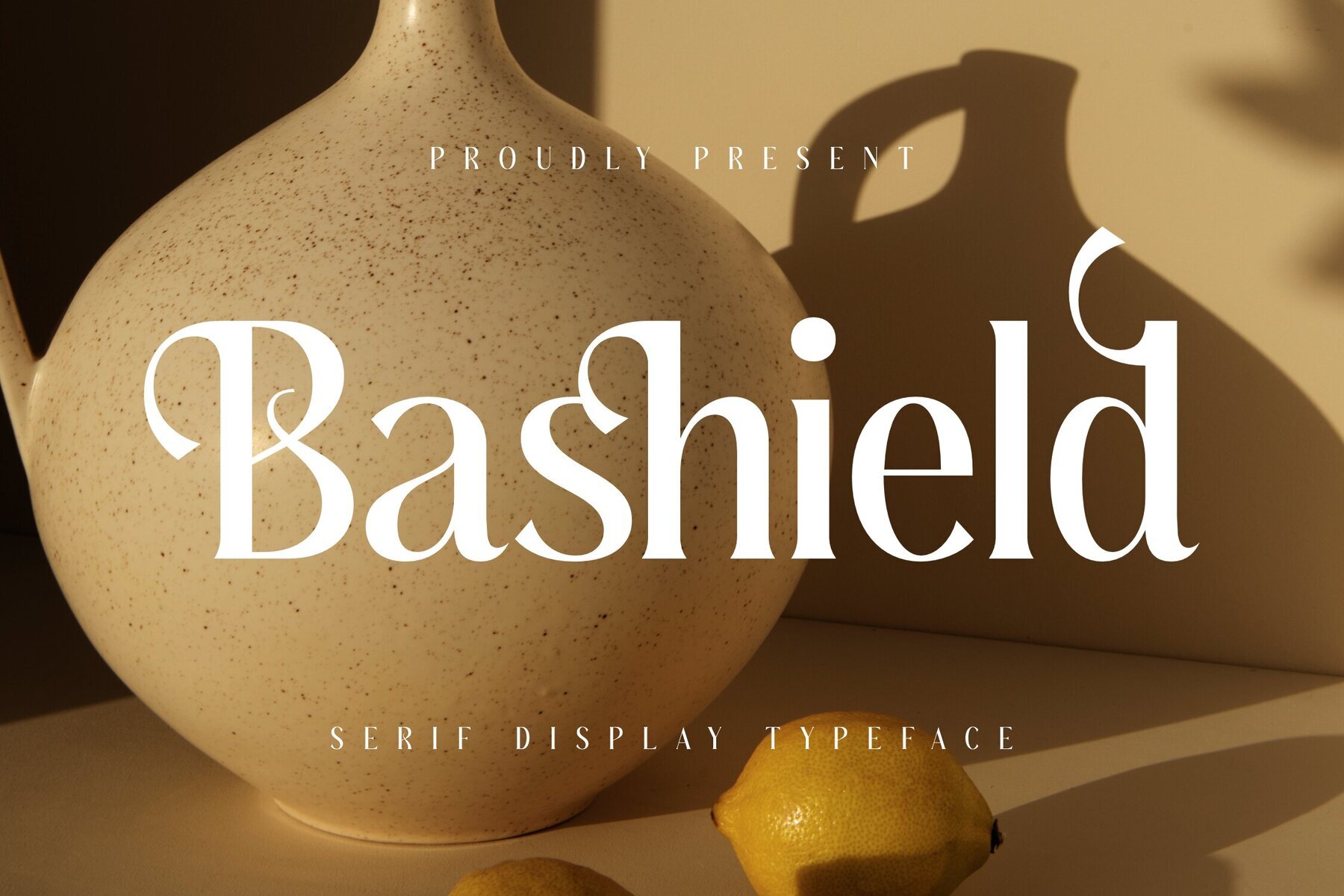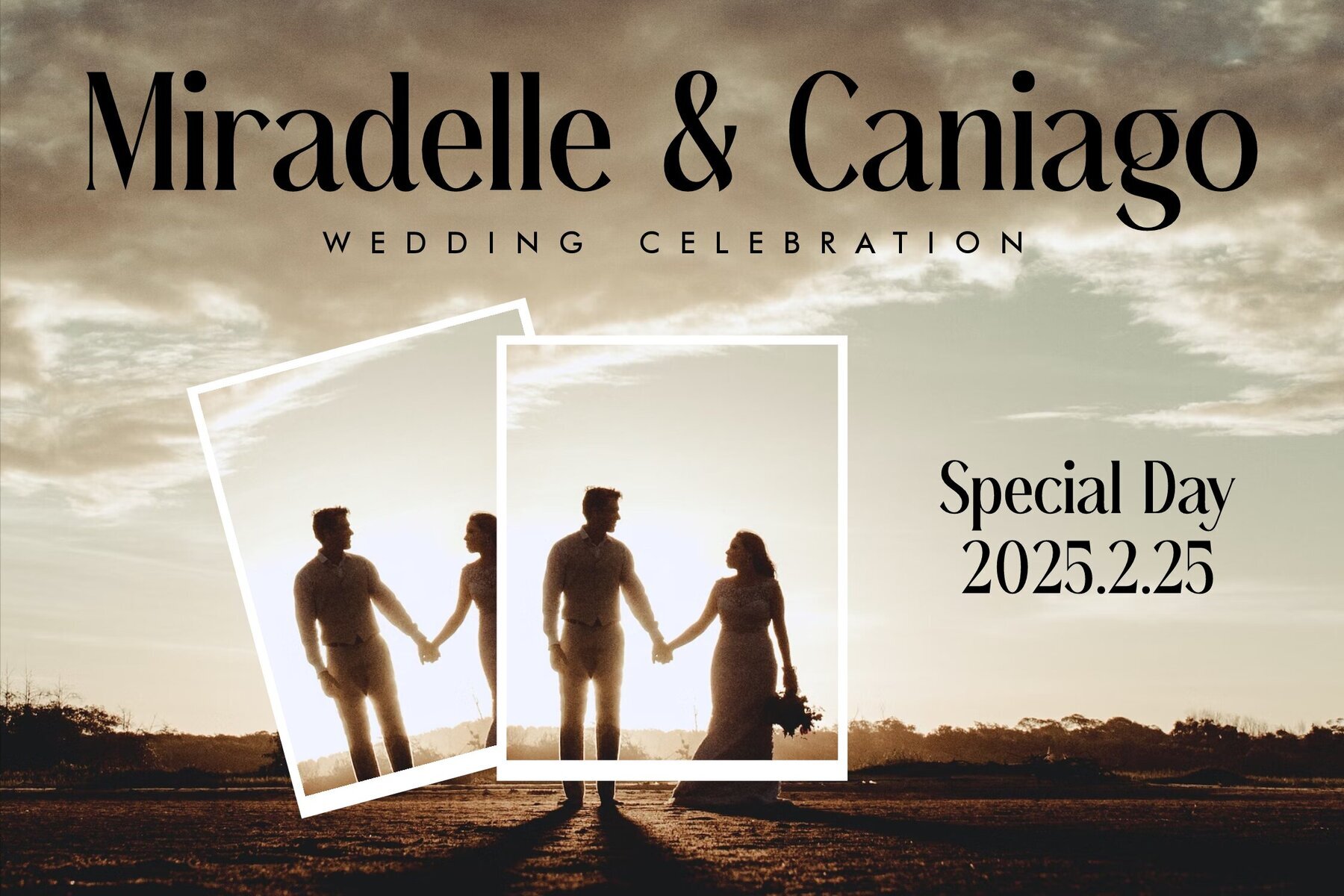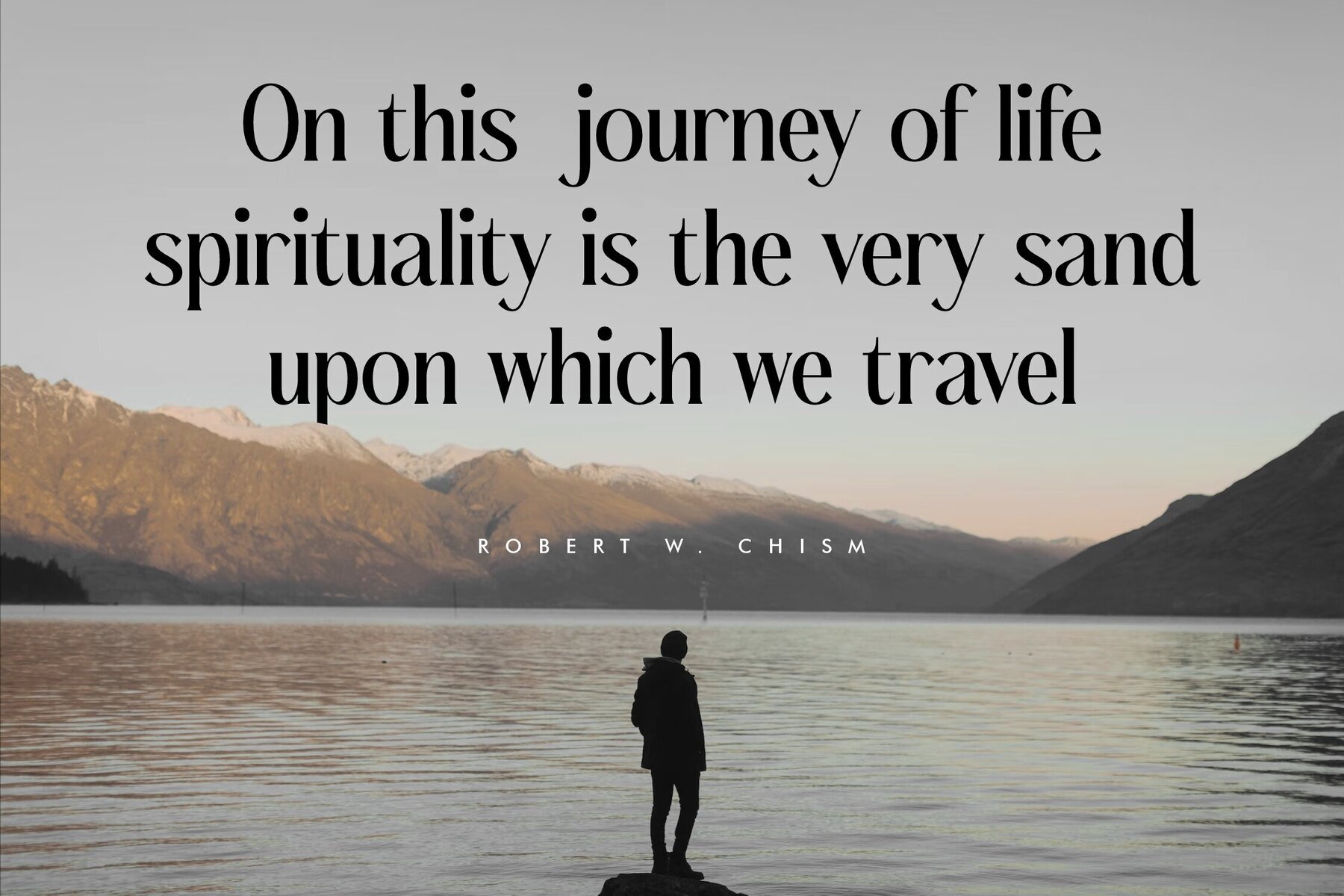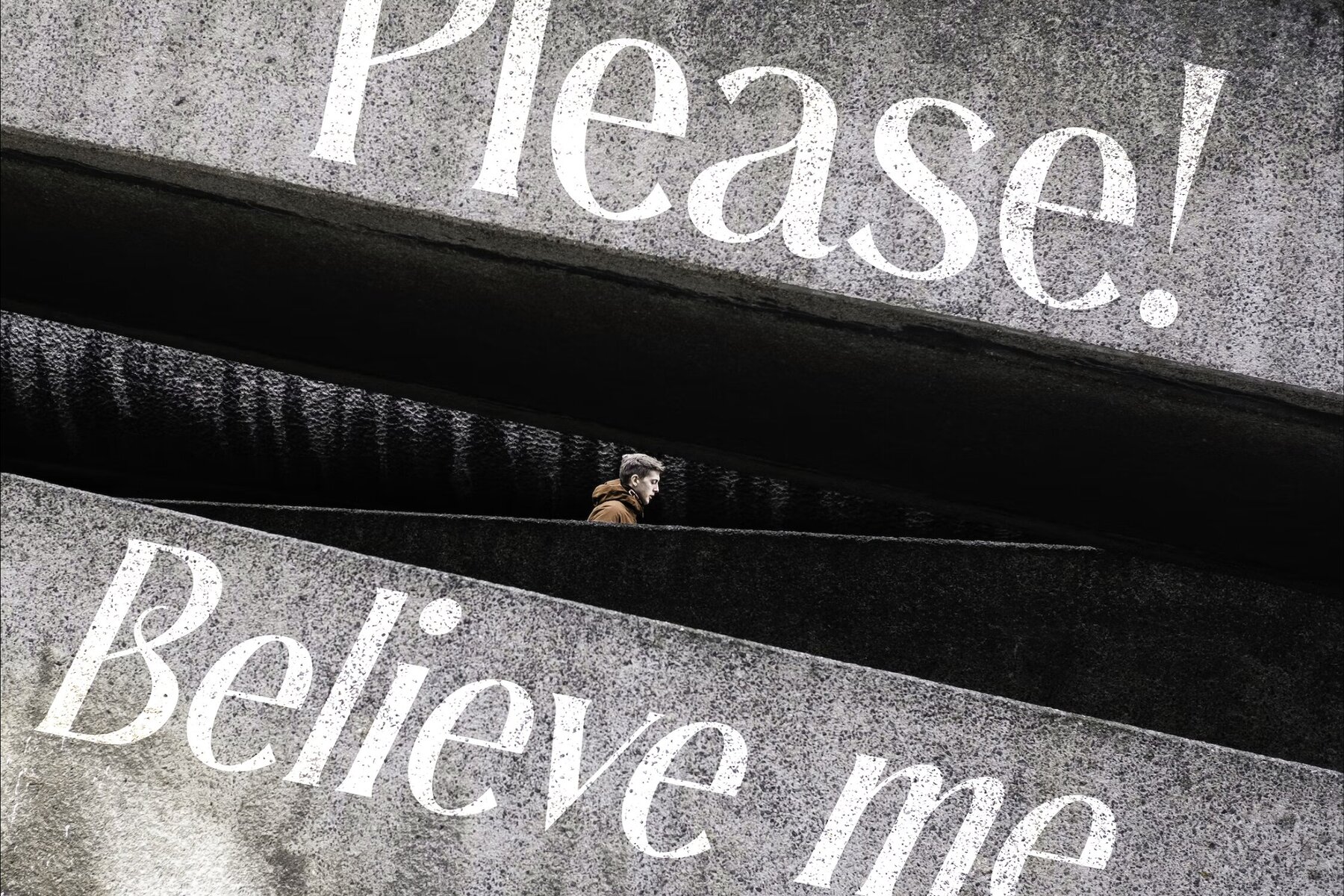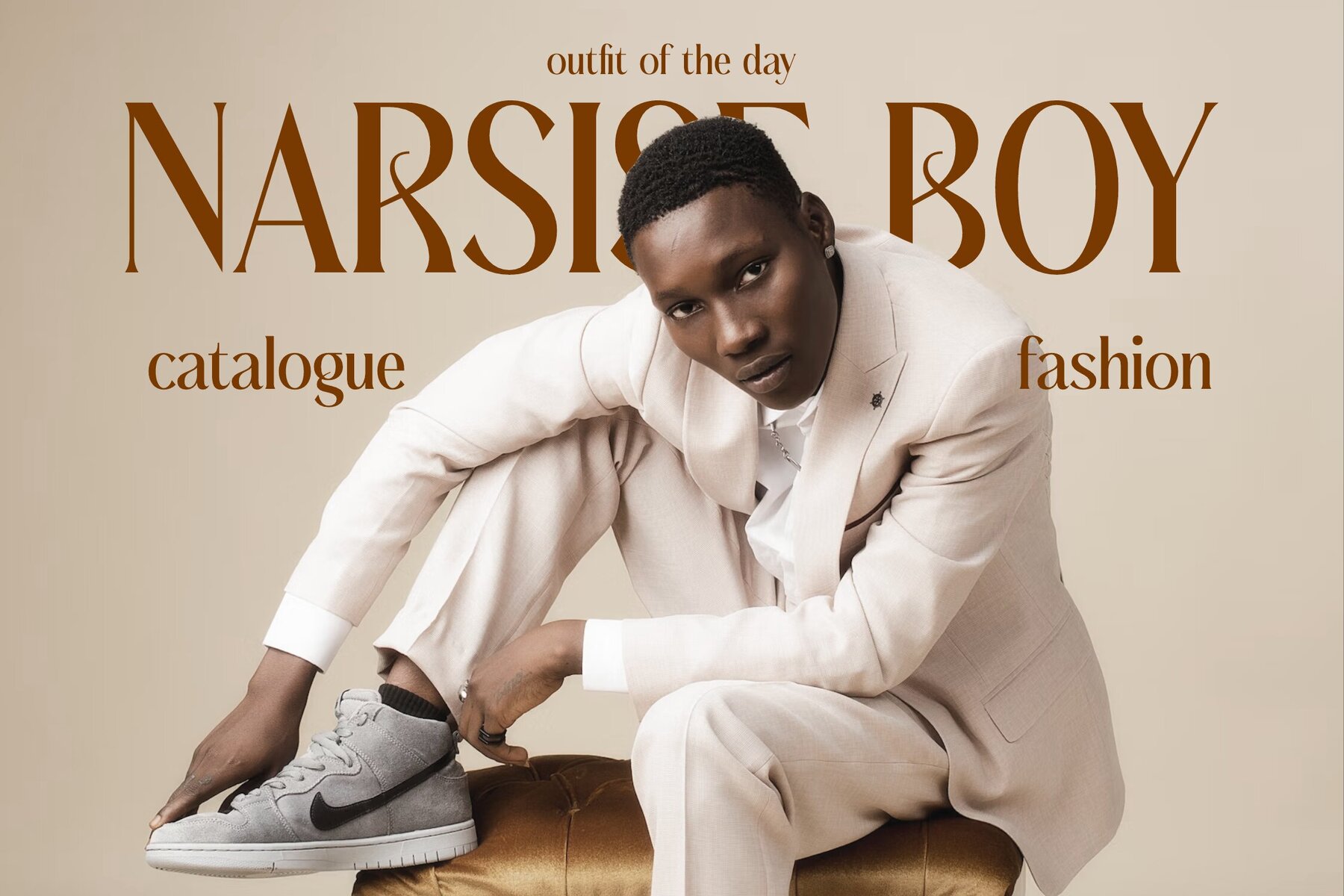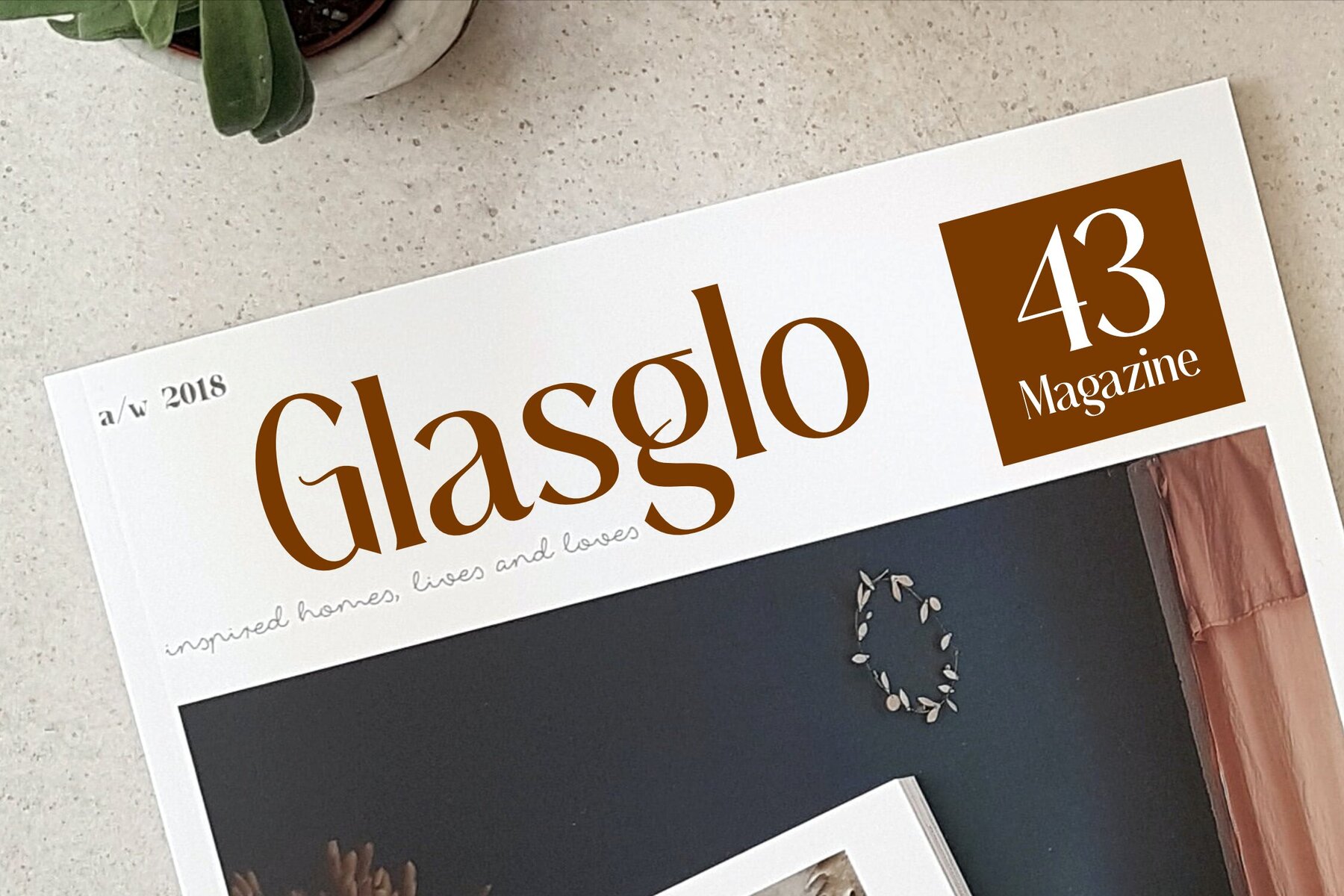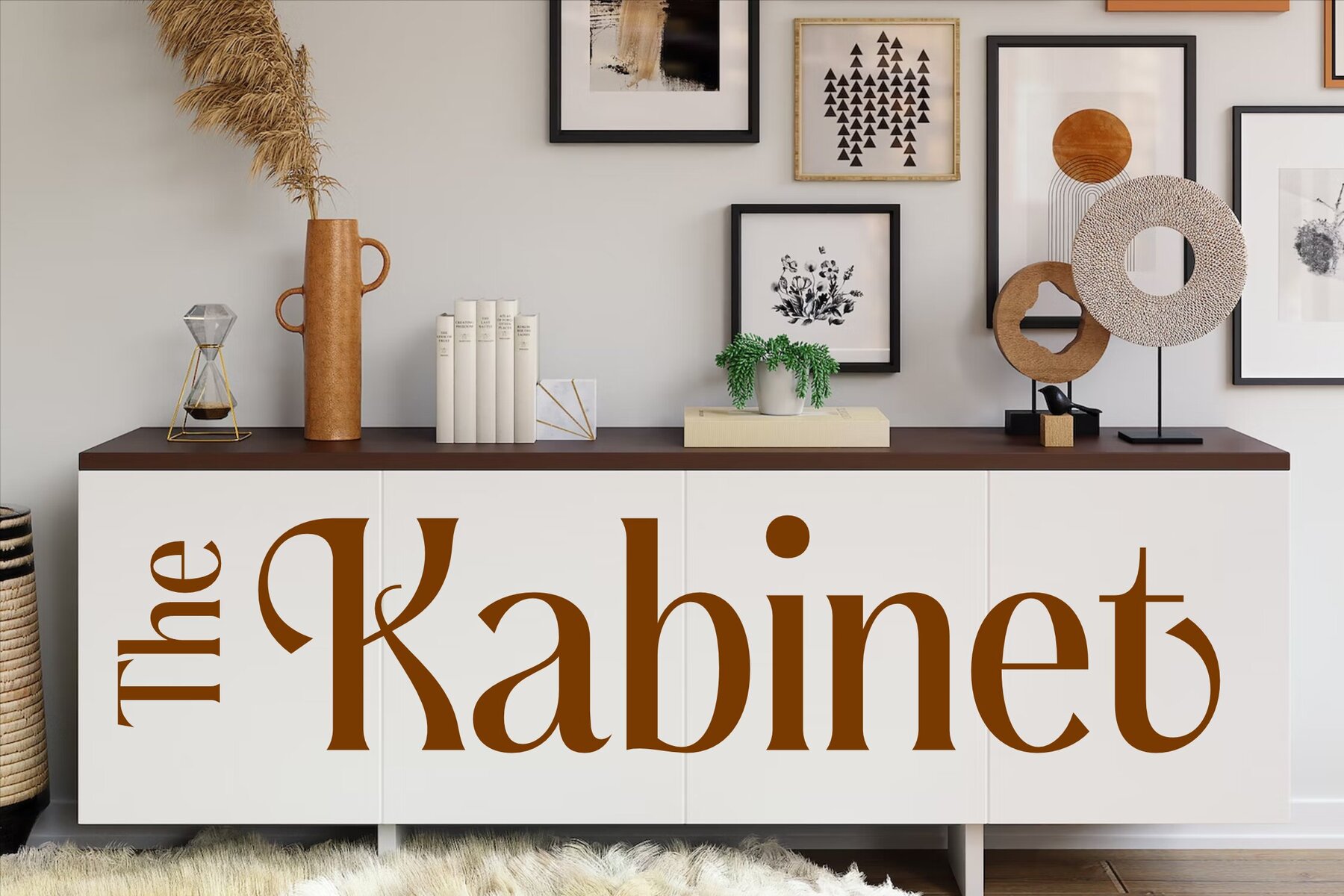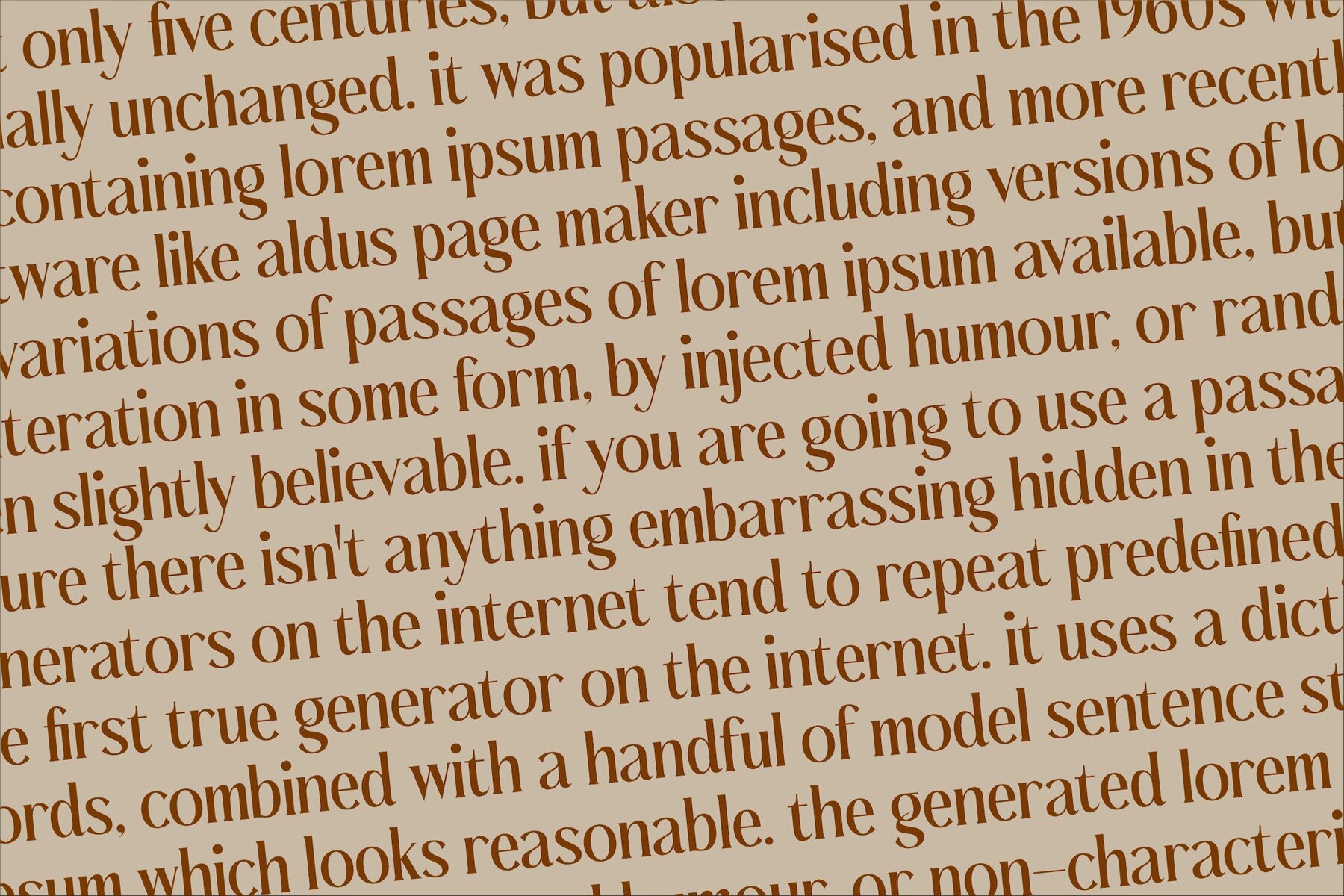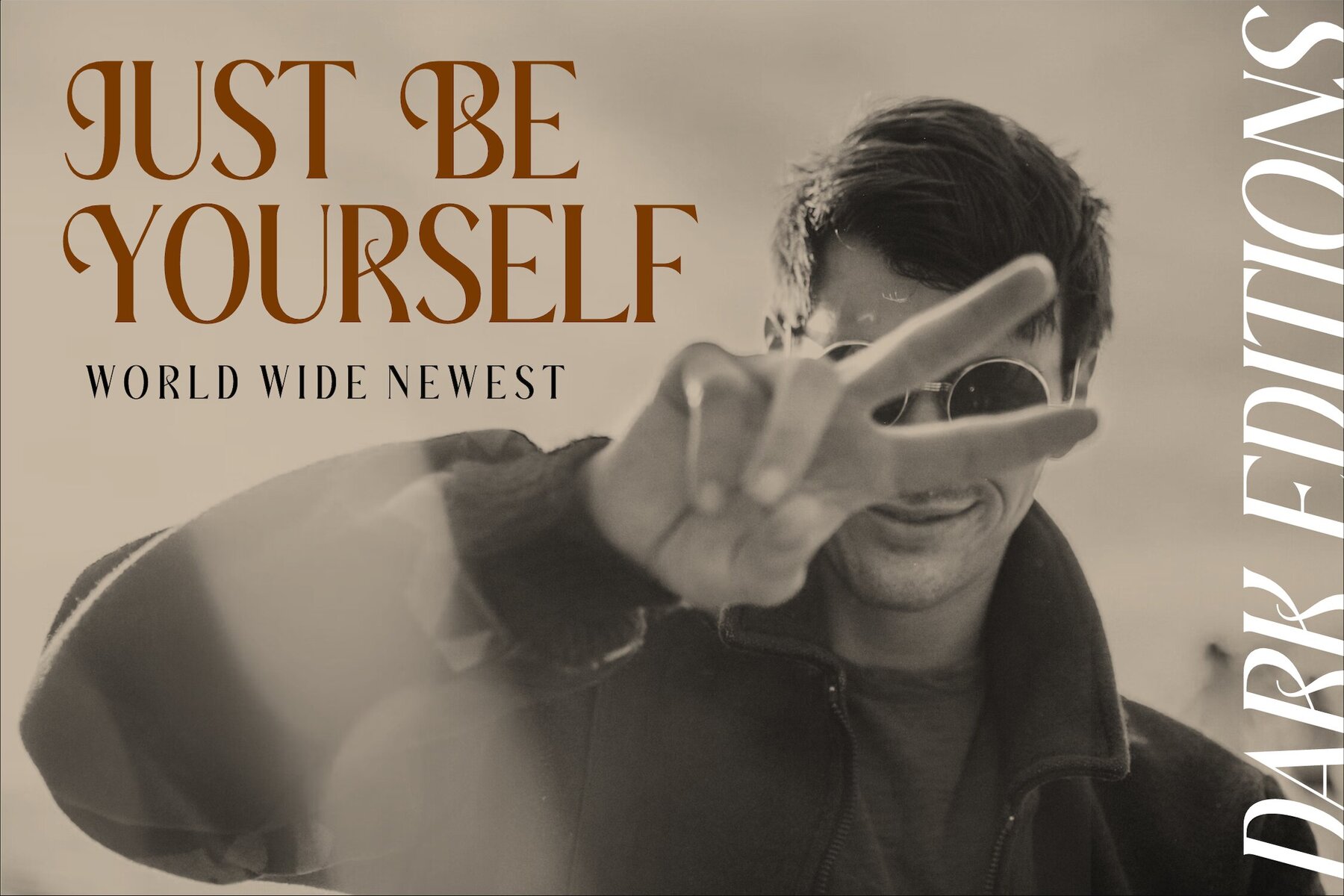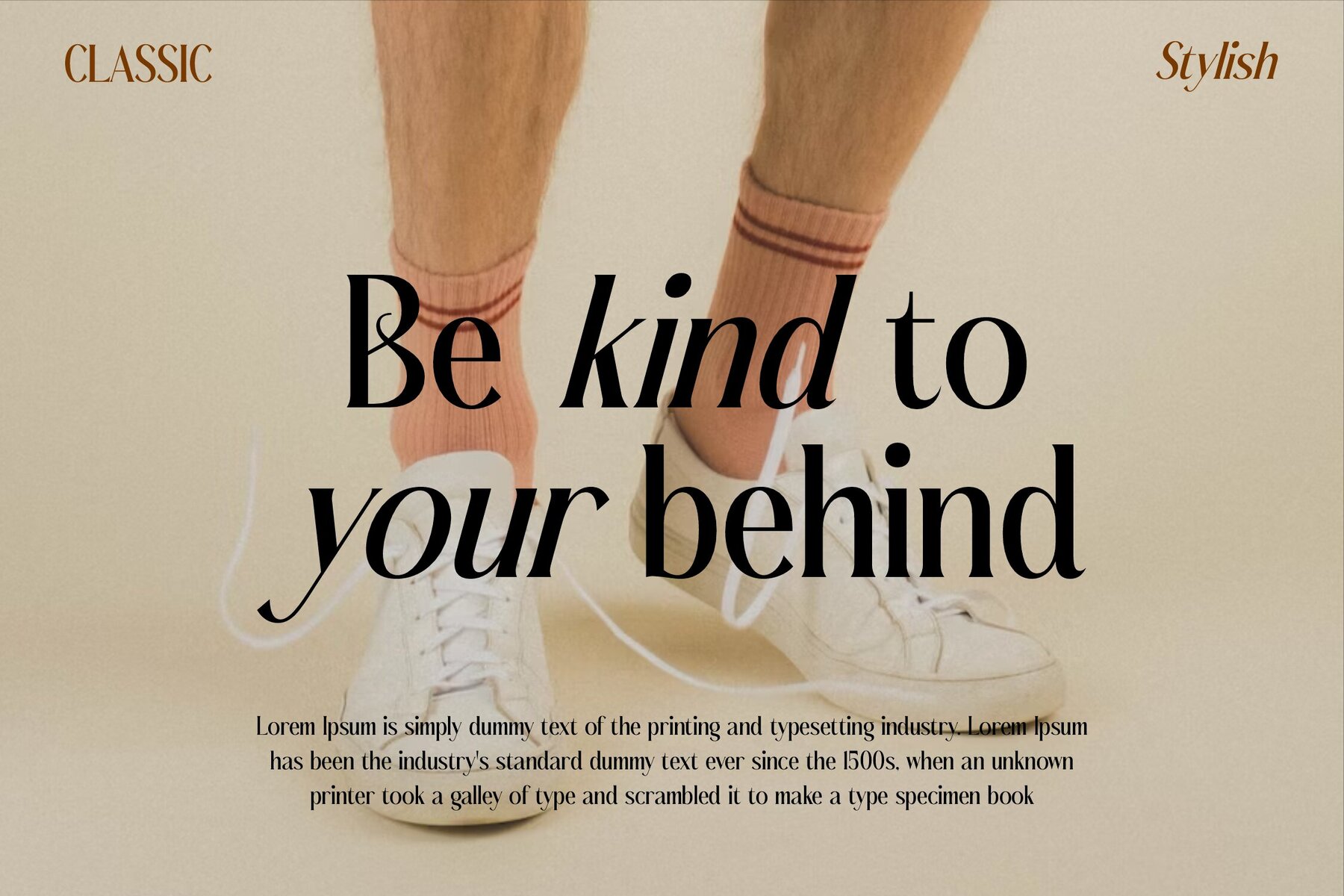
Bashield Font
Introducing Bashield by Storytype Studio, a serif typeface that marries modern aesthetics with classic charm. With its distinct style, Bashield is the perfect choice for creating elegant and luxurious logos, book and movie titles, fashion brand presentations, magazines, clothing design, and sophisticated lettering or quotes.Bashield Typeface: Elegance Redefined